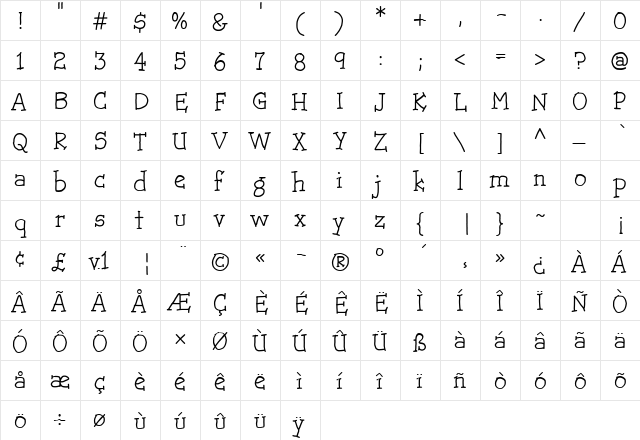
GweetHmk Regular Font Preview
GweetHmk Regular
GweetHmk Regular Font Details
Design Context for GweetHmk Typeface
GweetHmk is a composed and adaptable typeface that performs quietly and consistently across a wide range of design contexts.